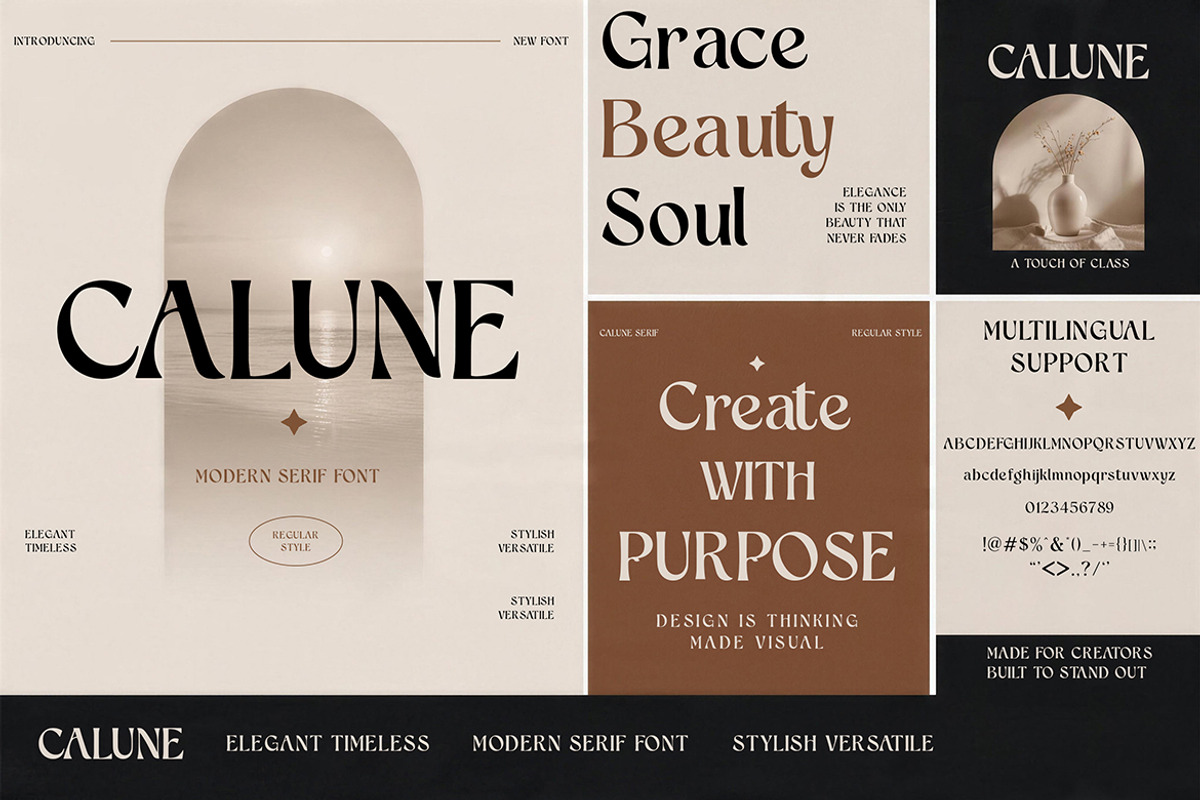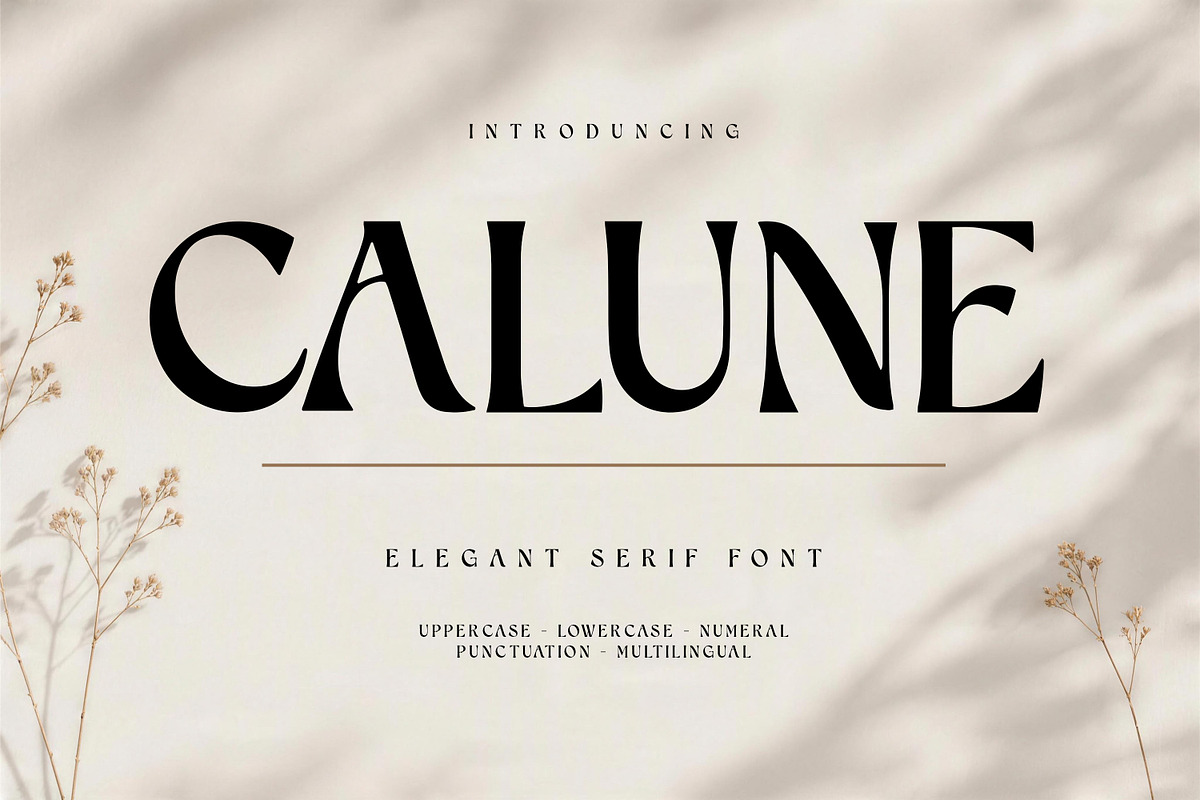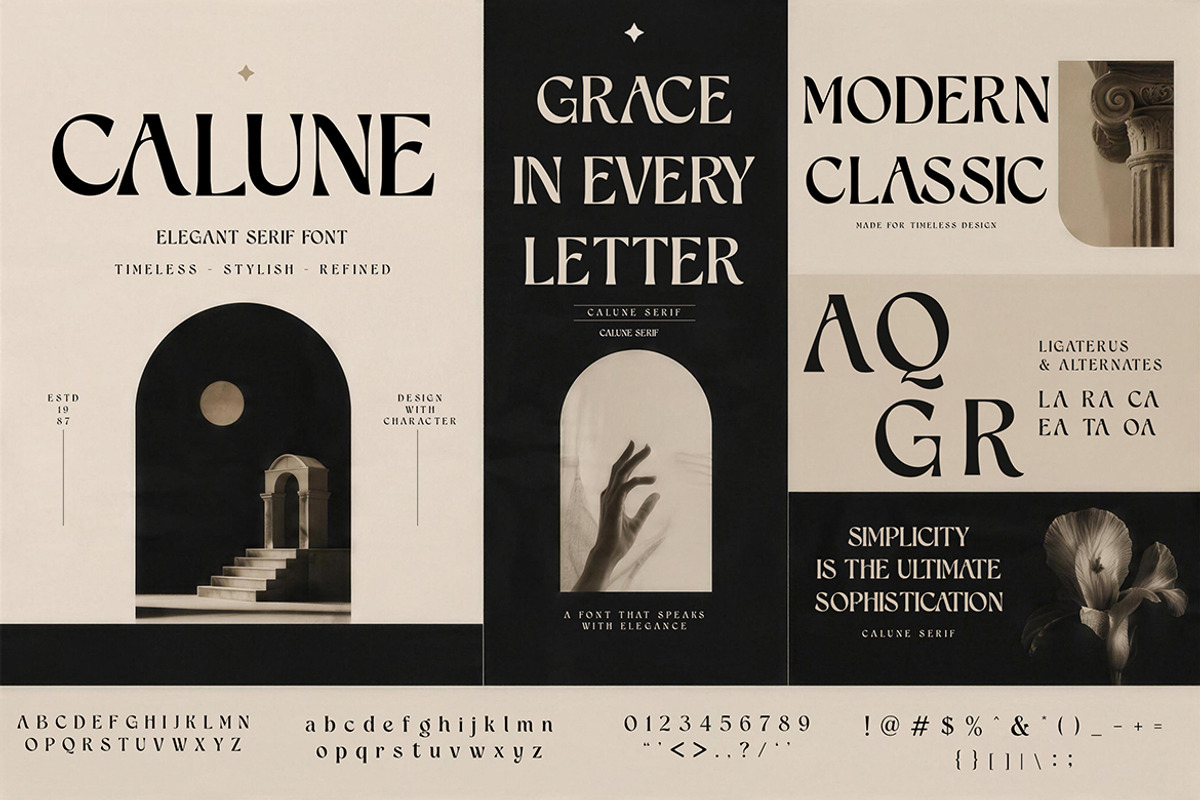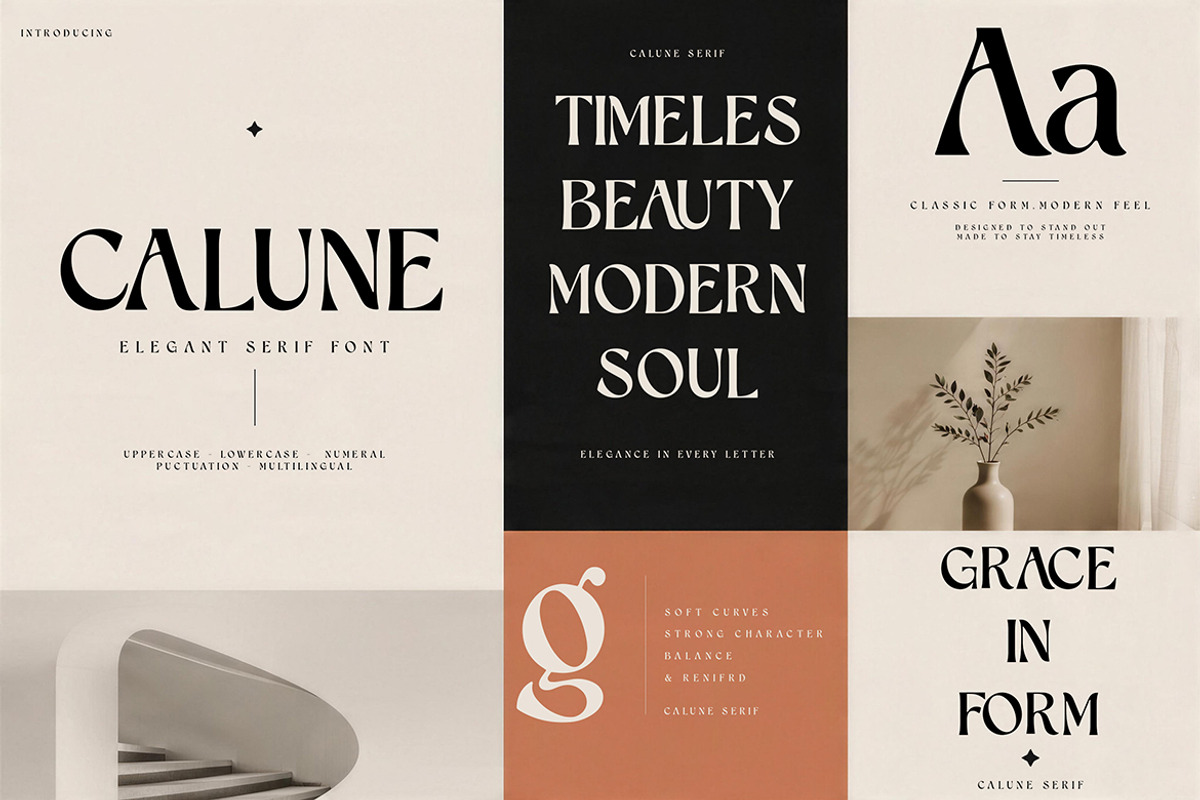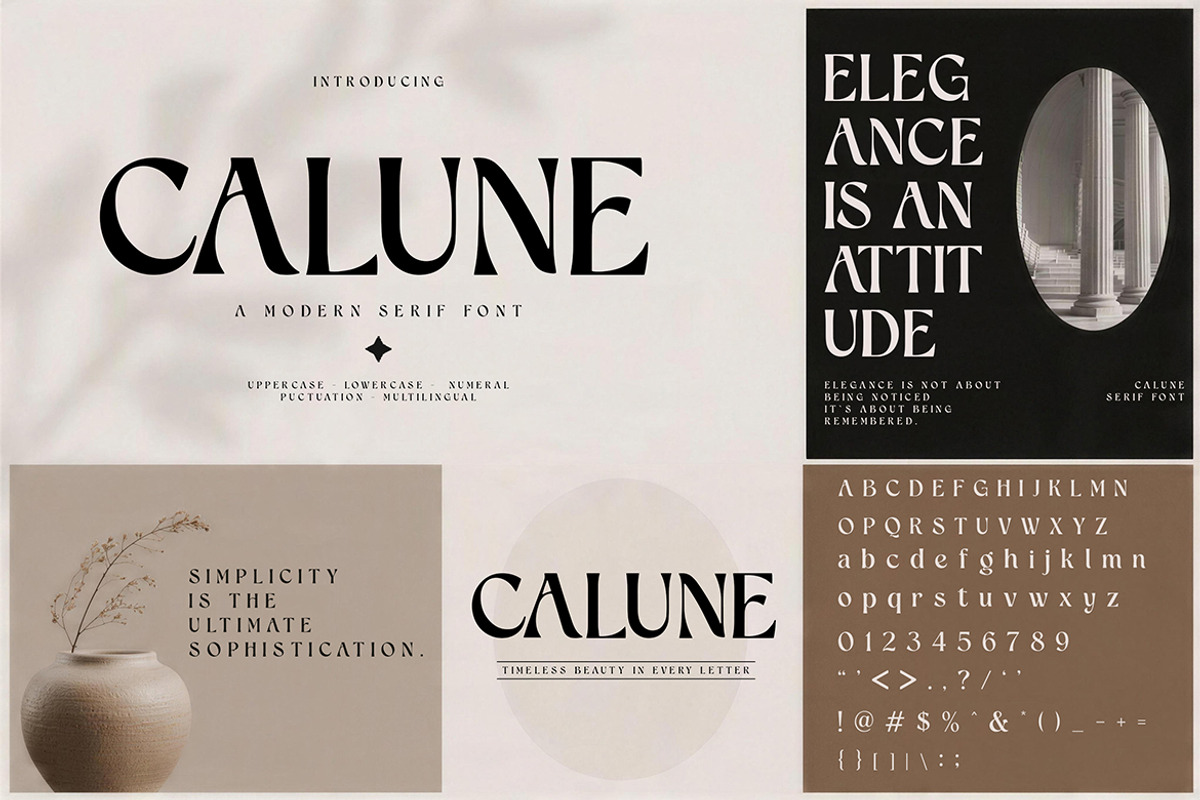
CALUNE
Calune is an elegant serif typeface crafted with graceful curves, refined contrast, and a sophisticated editorial character. Its tall proportions and distinctive letterforms create a luxurious visual presence while maintaining a clean and timeless appearance. Designed for both modern and classic compositions, Calune brings an effortless sense of elegance to branding, fashion, beauty, and premium editorial projects.
Luxury branding and visual identities
Fashion and beauty editorials
Wedding invitations and stationery
Premium packaging and product labels
Elegant headlines, posters, and magazines
With its sophisticated serif details and timeless personality, Calune is an excellent choice for creating polished designs that feel graceful, refined, and premium.